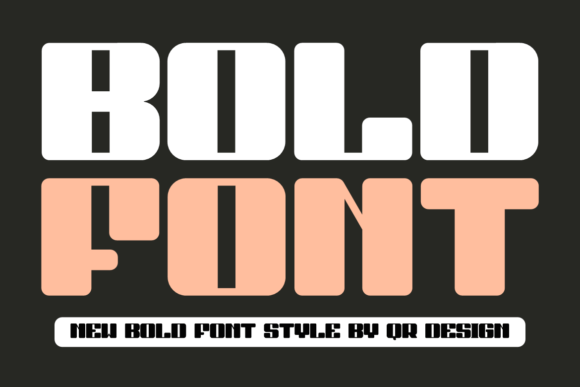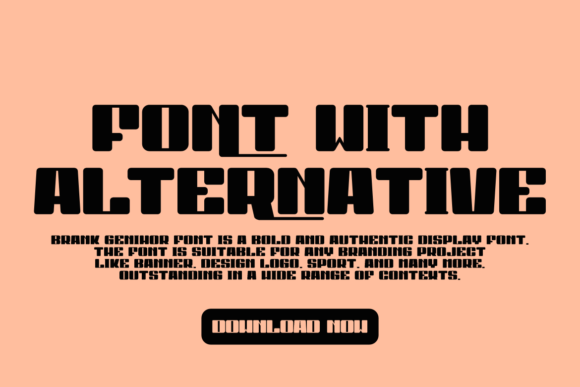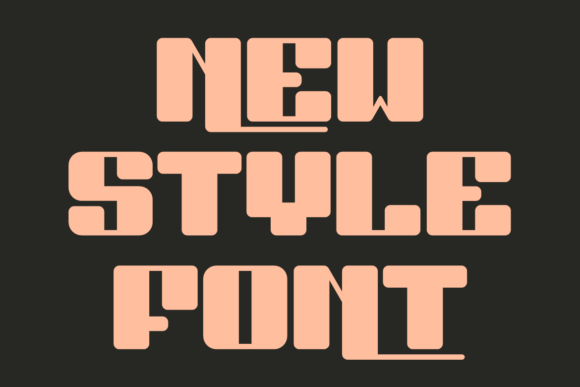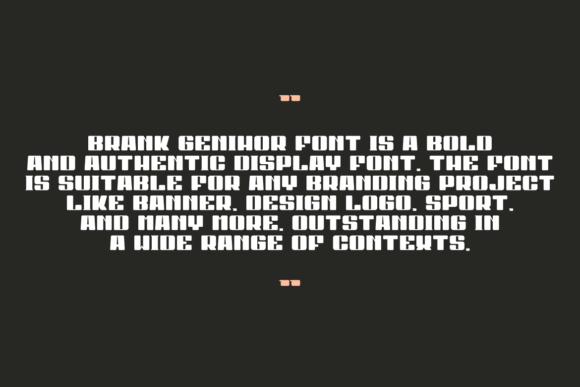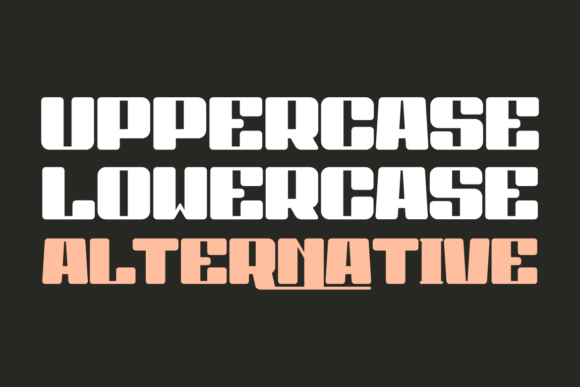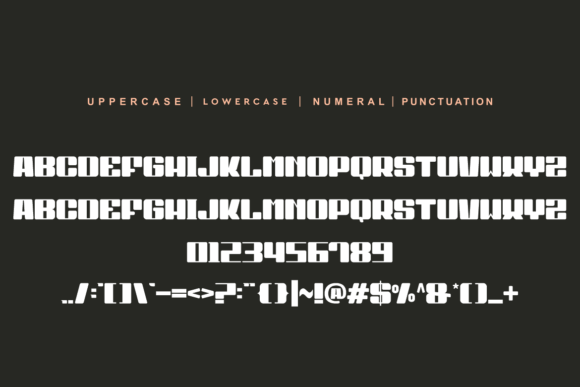
Introducing Brank Genihor Font: The Ultimate Display Font for Stunning Designs
Are you tired of using the same old fonts for your posters, banners, and headlines? Look no further! Brank Genihor Font is here to revolutionize your design game with its cool and powerful display font. This stunning font is perfect for designers and crafters who want to add a touch of sophistication and elegance to their work.
The Features of Brank Genihor Font
Brank Genihor Font is a versatile display font that boasts a range of impressive features. Here are just a few reasons why you’ll love working with this font:
- Unique and Eye-Catching Design: Brank Genihor Font has a distinctive and stylish design that will make your work stand out from the crowd. Its bold and edgy lines are perfect for creating striking headlines and titles.
- High-Quality and Crisp Text: This font is designed to deliver high-quality and crisp text, even at large sizes. This makes it perfect for posters, banners, and other display materials.
- Easy to Read: Despite its bold and edgy design, Brank Genihor Font is surprisingly easy to read. This makes it perfect for use in headlines, titles, and other applications where readability is key.
- Multi-Language Support: Brank Genihor Font supports multiple languages, making it a great choice for designers and crafters who work with international clients or want to create multilingual designs.
How to Use Brank Genihor Font in Your Designs
Brank Genihor Font is incredibly versatile and can be used in a wide range of design applications. Here are just a few ideas to get you started:
- Posters and Flyers: Use Brank Genihor Font to create eye-catching posters and flyers that grab attention and communicate your message effectively.
- Banners and Signage: This font is perfect for creating bold and striking banners and signage that will make your business or event stand out.
- Headlines and Titles: Use Brank Genihor Font to add a touch of sophistication and elegance to your headlines and titles. It’s perfect for blog posts, articles, and other written content.
- Branding and Packaging: This font can also be used in branding and packaging design to create a unique and memorable visual identity for your business or product.
Why Choose Brank Genihor Font?
With so many fonts to choose from, why should you choose Brank Genihor Font? Here are just a few reasons why this font stands out from the crowd:
- Unique Design: Brank Genihor Font has a unique and distinctive design that will set your work apart from the competition.
- High-Quality and Versatile: This font is designed to deliver high-quality text and can be used in a wide range of design applications.
If you’re looking for a cool and powerful display font that will take your designs to the next level, look no further than Brank Genihor Font. With its unique and eye-catching design, high-quality text, and versatility, this font is perfect for designers and crafters who want to create stunning posters, banners, headlines, and more. So why wait? Add Brank Genihor Font to your design toolkit today and see the amazing results for yourself!